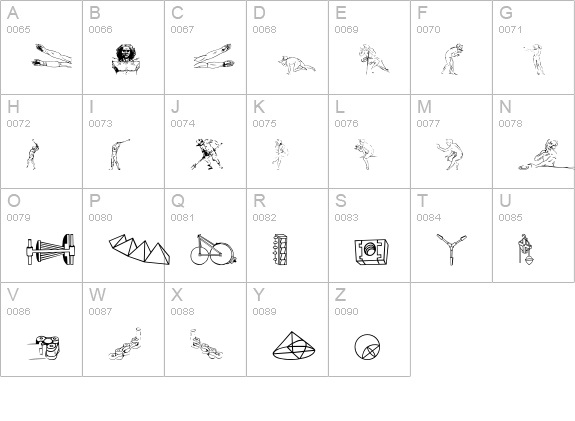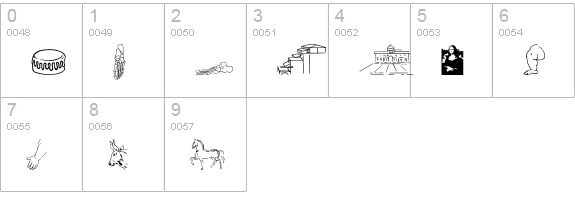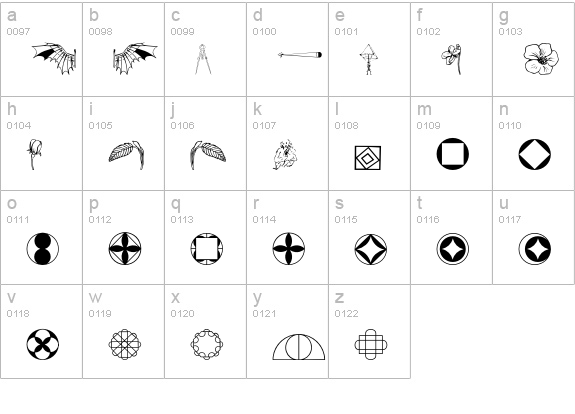
P22DaVinciExtras Font Details
P22DaVinciExtras is an exceptional font that encapsulates the essence of Leonardo da Vinci's genius. Designed to complement the iconic P22 Da Vinci font, P22DaVinciExtras offers a wide range of additional symbols, ornaments, and decorative elements inspired by Da Vinci's intricate drawings and sketches. This versatile font allows designers, artists, and enthusiasts to add a touch of Renaissance elegance to their projects. Whether you're working on a historical publication, creating a logo for an art gallery, or simply want to infuse your designs with an air of sophistication, P22DaVinciExtras is the perfect choice. What makes P22DaVinciExtras even more remarkable is that it is absolutely free to download. Yes, that's right – this incredible font is freely available to all at FontsMarket.com. So you can enhance your artistic endeavors without any cost, making it an invaluable asset for both professionals and amateurs alike. With its impeccable attention to detail, P22DaVinciExtras offers a vast selection of meticulously crafted symbols, ornaments, and decorative elements that will elevate your designs to new heights. From intricate flourishes to distinctive symbols, this font provides endless possibilities for creative expression. So, whether you're a typography enthusiast or a design professional, don't miss out on the opportunity to enhance your projects with P22DaVinciExtras. Download it today from FontsMarket.com and unlock the potential to create captivating and visually stunning works of art.